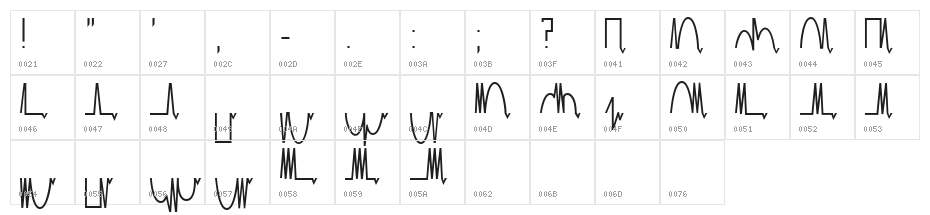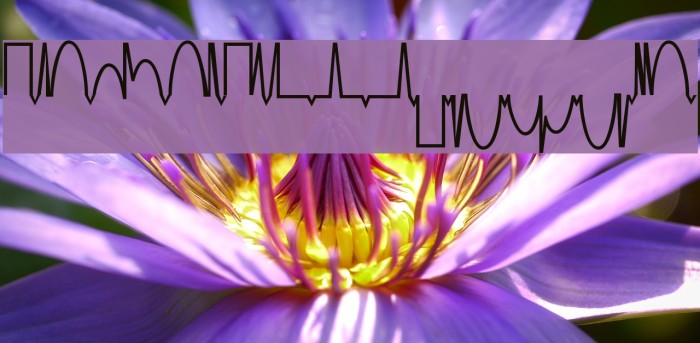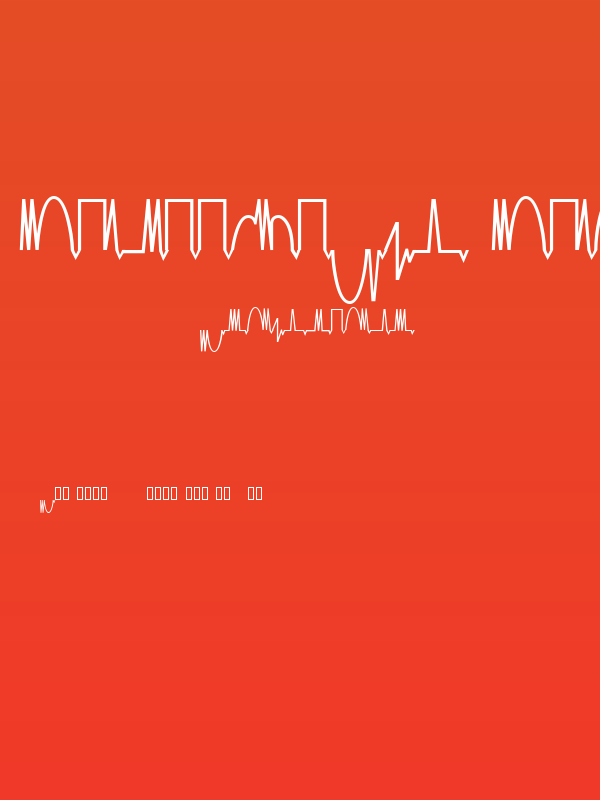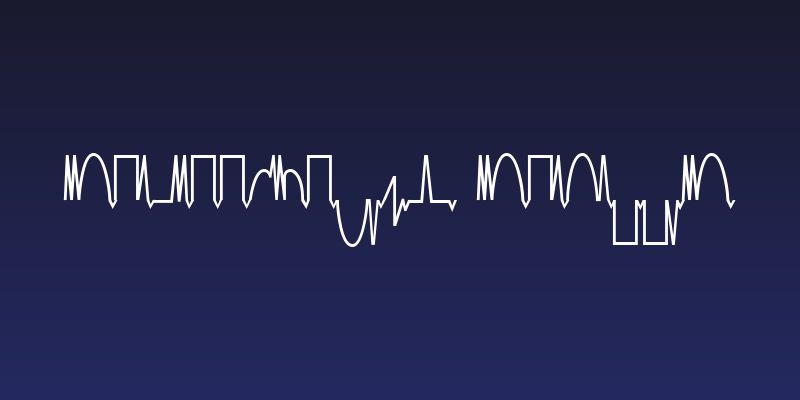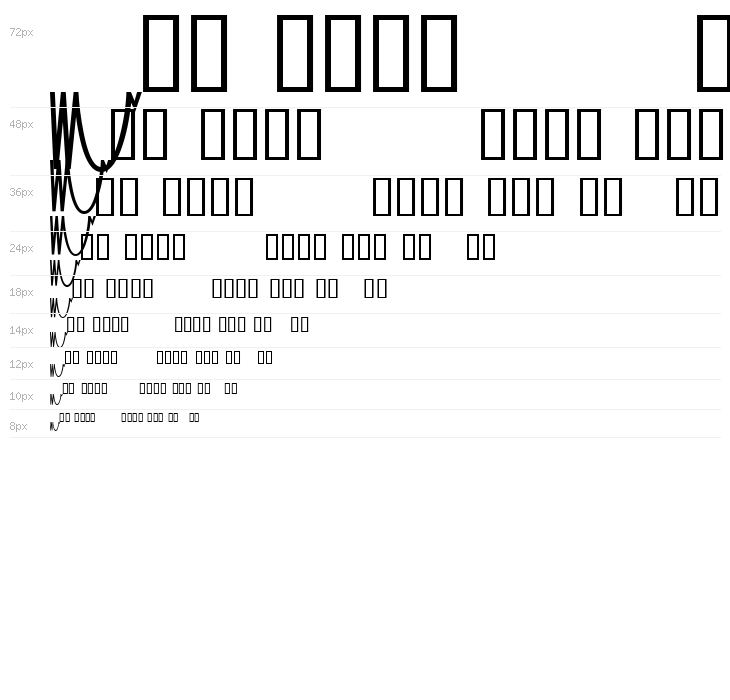
MesaAnalog Medium Font
MesaAnalog Medium Description
This font features a highly abstract and artistic design, characterized by its waveform-like appearance. The letters are represented as continuous, flowing lines that mimic the look of an analog signal or sound wave. This unique style creates a sense of movement and rhythm, making it visually striking and unconventional. The font lacks traditional letterforms, opting instead for a creative interpretation that challenges readability but excels in artistic expression. It is ideal for projects that require a bold, avant-garde aesthetic.
| Use Case | Logos, Artistic displays |
| Proposed Projects | Ideal for album covers, experimental art projects, or any creative work that embraces unconventional design. |